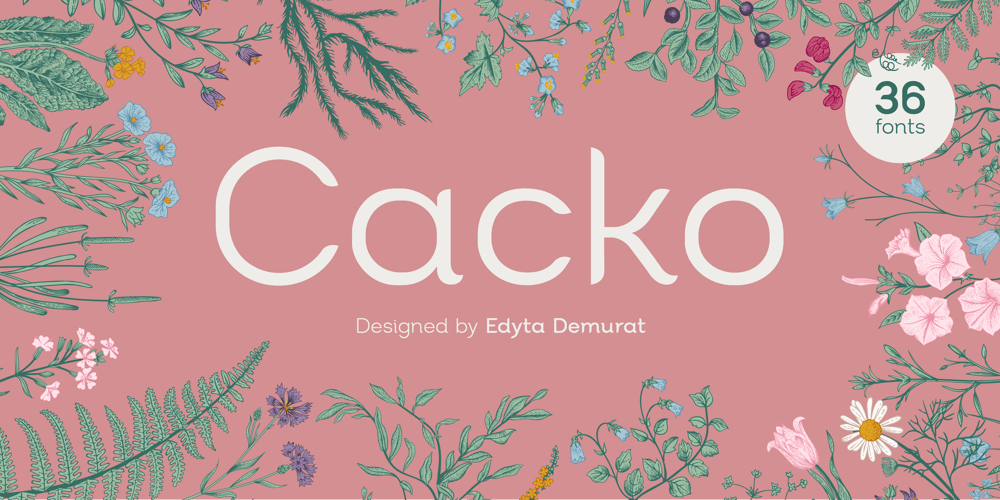
Cacko Font Family was designed by Edyta Demurat and published by Edyta Demurat. Cacko contains 36 styles and family package options. Cacko has a functional look with an elegant touch. The family is available in 18 weights with complementary italics. Cacko is very readability so is ideally suited for books, magazines, catalogs, posters, invitations as well as web design. Its simplicity with elegance details will also look great in logo, titles and short sentences.